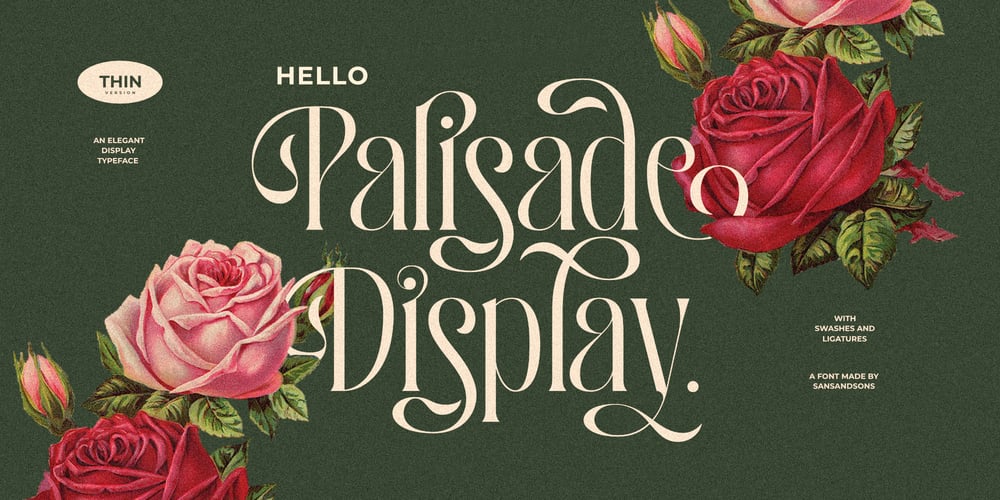
Hello Palisade Font Family was designed by Angga Suwista and published by Sans And Sons. Hello Palisade contains 1 styles and family package options. Hello Palisade – Made by Sans And SonsSay hello to “Hello Palisade” — a chic serif font that effortlessly blends classic vibes with a modern twist.With sleek curves and subtle serifs, this font adds just the right amount of style to any project. Whether you’re working on branding, invitations, or editorial layouts, Palisade Display brings a polished yet approachable feel. It’s the go-to font for making your design look timeless and effortlessly cool. Let every letter speak with confidence and flair.